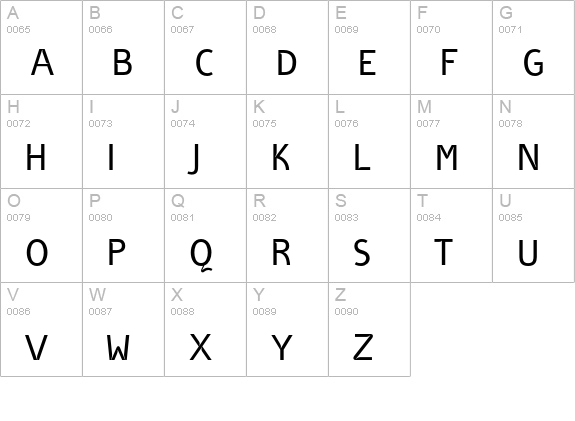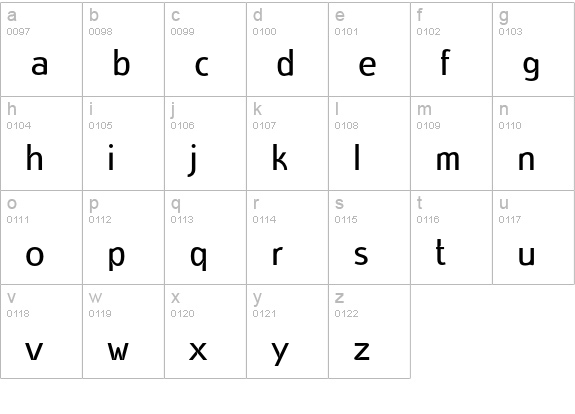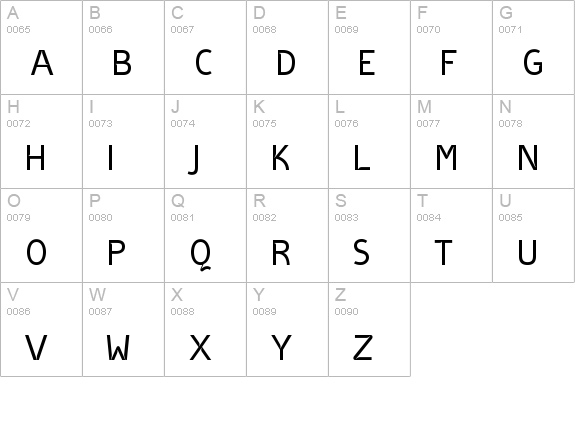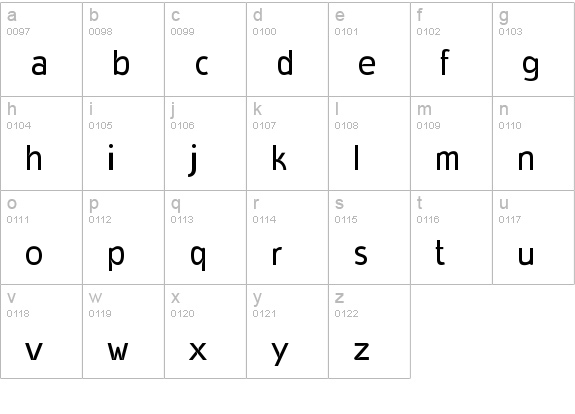
Plastizid97-Regular Font Details
Plastizid97-Regular is the standard, neutral variant in the Plastizid97 typeface family \xE2\x80\x94 well suited to general body text, paragraphs, and standard typographic work.
Plastizid97-Regular font is a modern and stylish typeface that exudes a sense of sophistication and elegance. Its sleek and clean design makes it perfect for a wide range of design projects, from branding to editorial work. The unique geometric shapes and sharp edges of this font give it a contemporary and edgy feel, making it stand out from the crowd. What makes Plastizid97-Regular font even more appealing is that it is free to download at FontsMarket.com. This means that you can easily access this high-quality font without having to worry about any costs. Whether you're a professional designer or a casual enthusiast, Plastizid97-Regular font is a versatile and reliable choice that will elevate your designs to the next level. Don't miss out on the opportunity to enhance your projects with this amazing font – download it for free today!